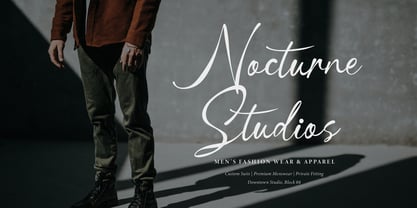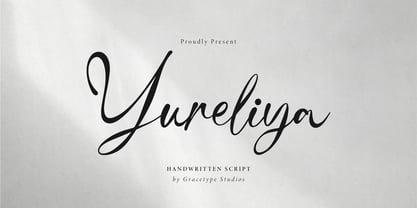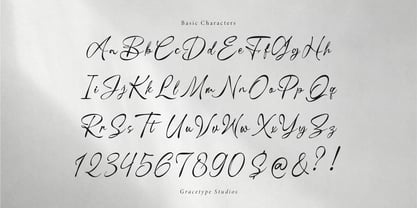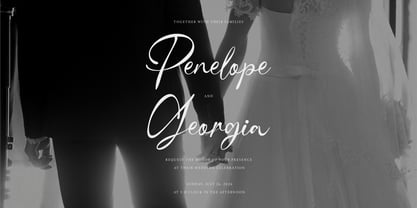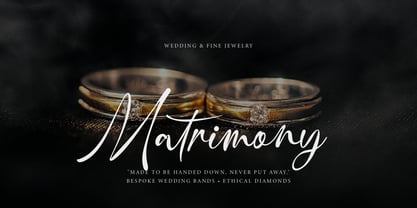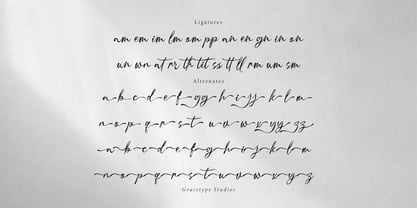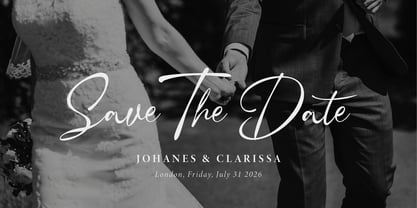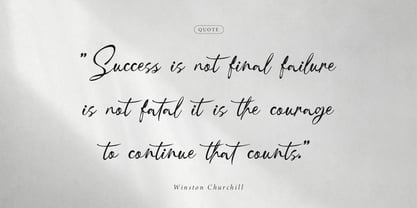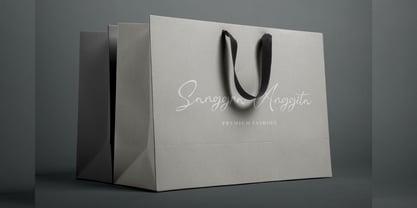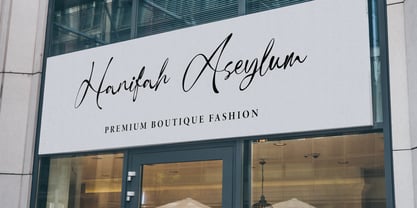
Yureliya
by Tini Fitriani
The Yureliya Font Family and published by Tini Fitriani. Yureliya contains 1 styles. More about this family
Yureliya | Handwritten Script, from Gracetypestudio, suitable for any projects such as: logos, branding projects, homeware designs, product packaging, mugs, quotes, posters, shopping bags, t-shirts, book covers, name card, invitation cards, greeting cards, label, photography, watermark, special events, and all your other lovely projects that need a Script taste.